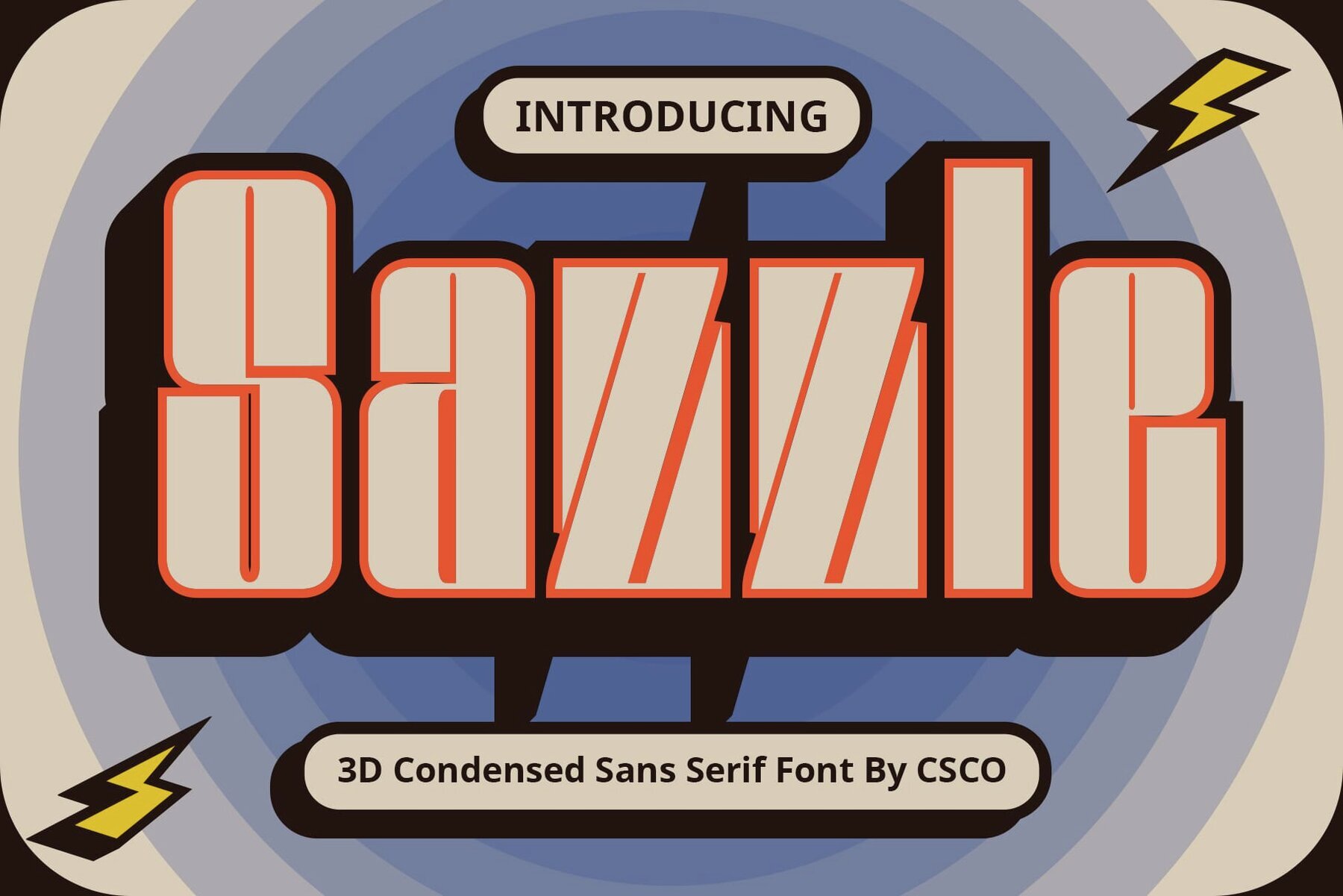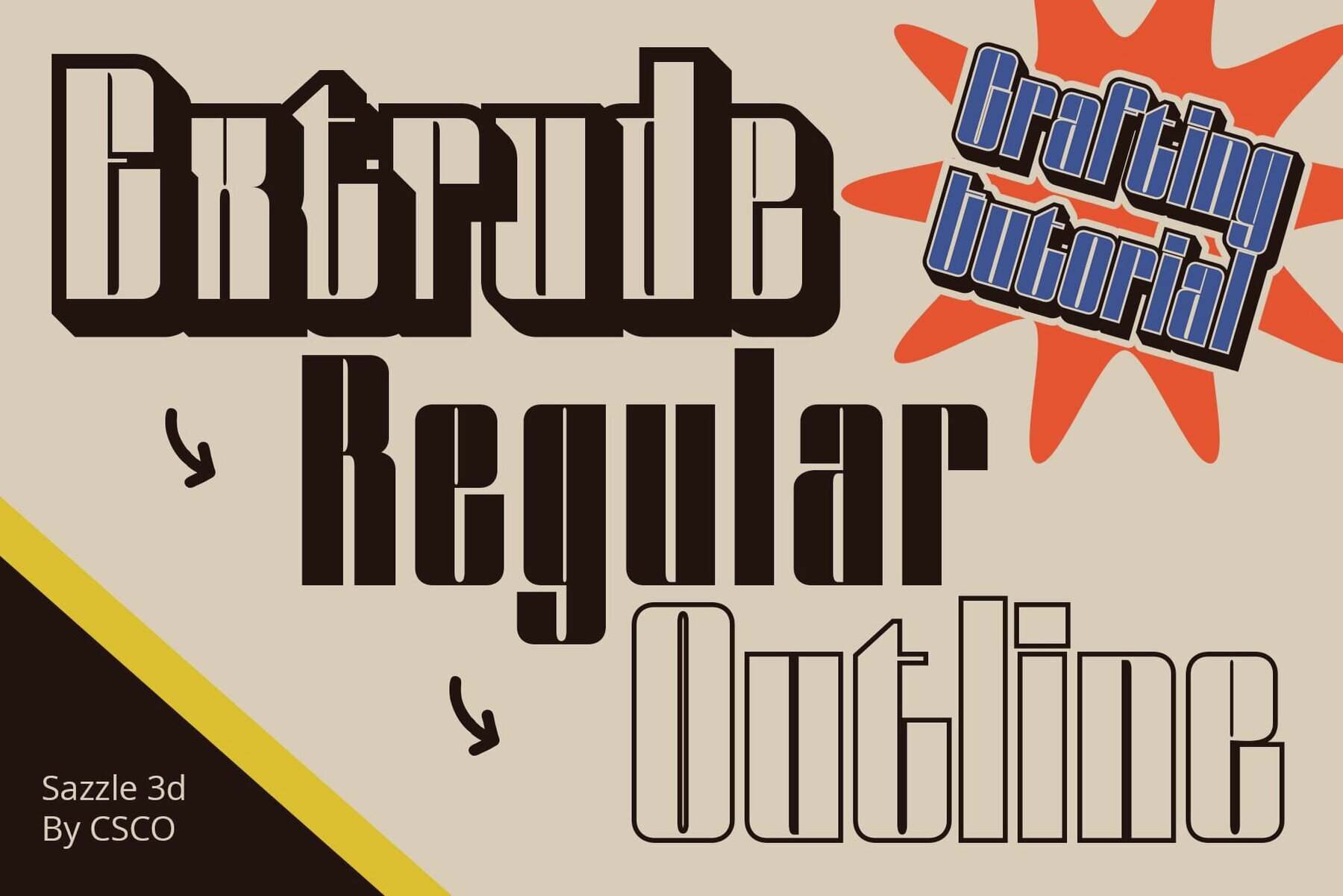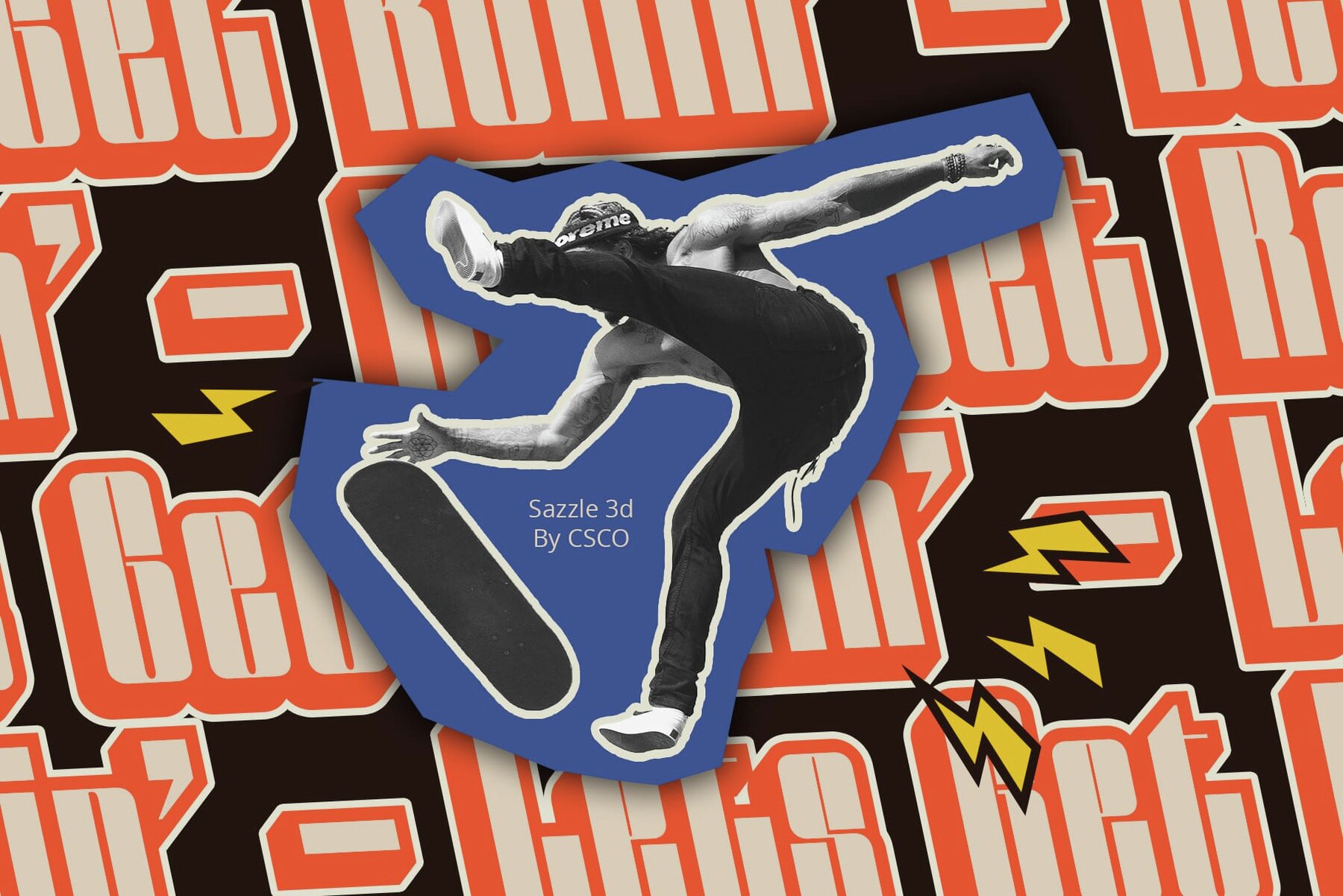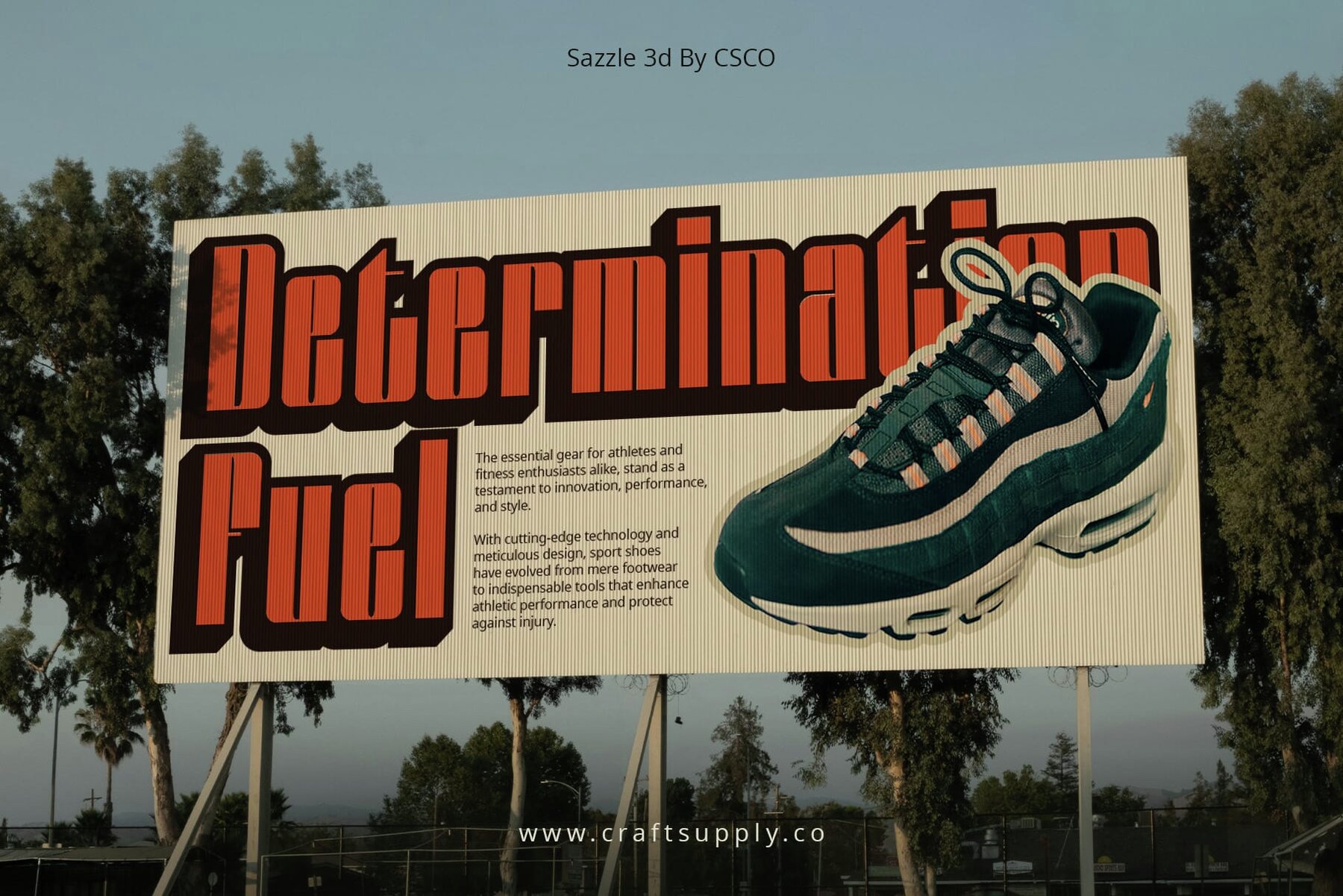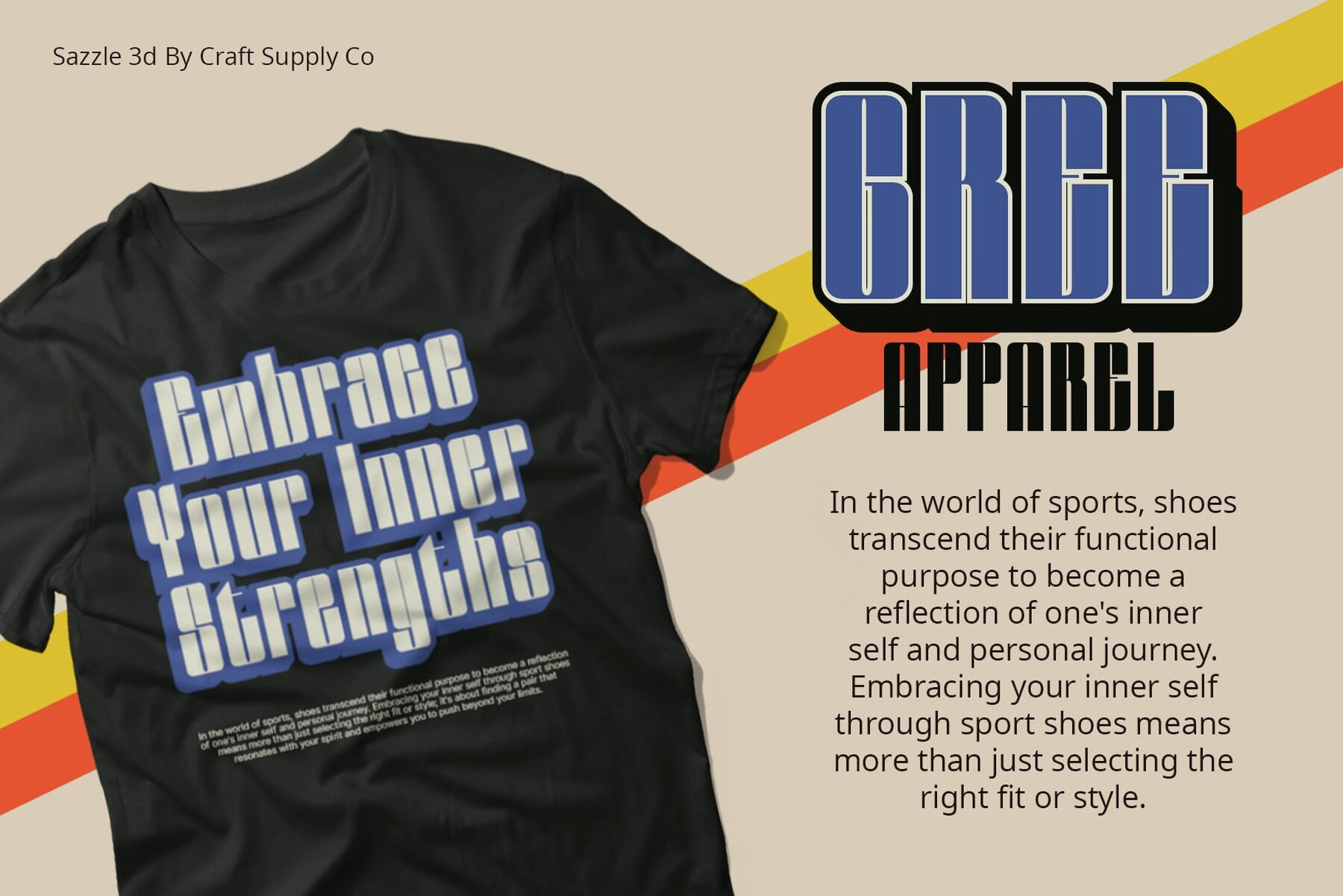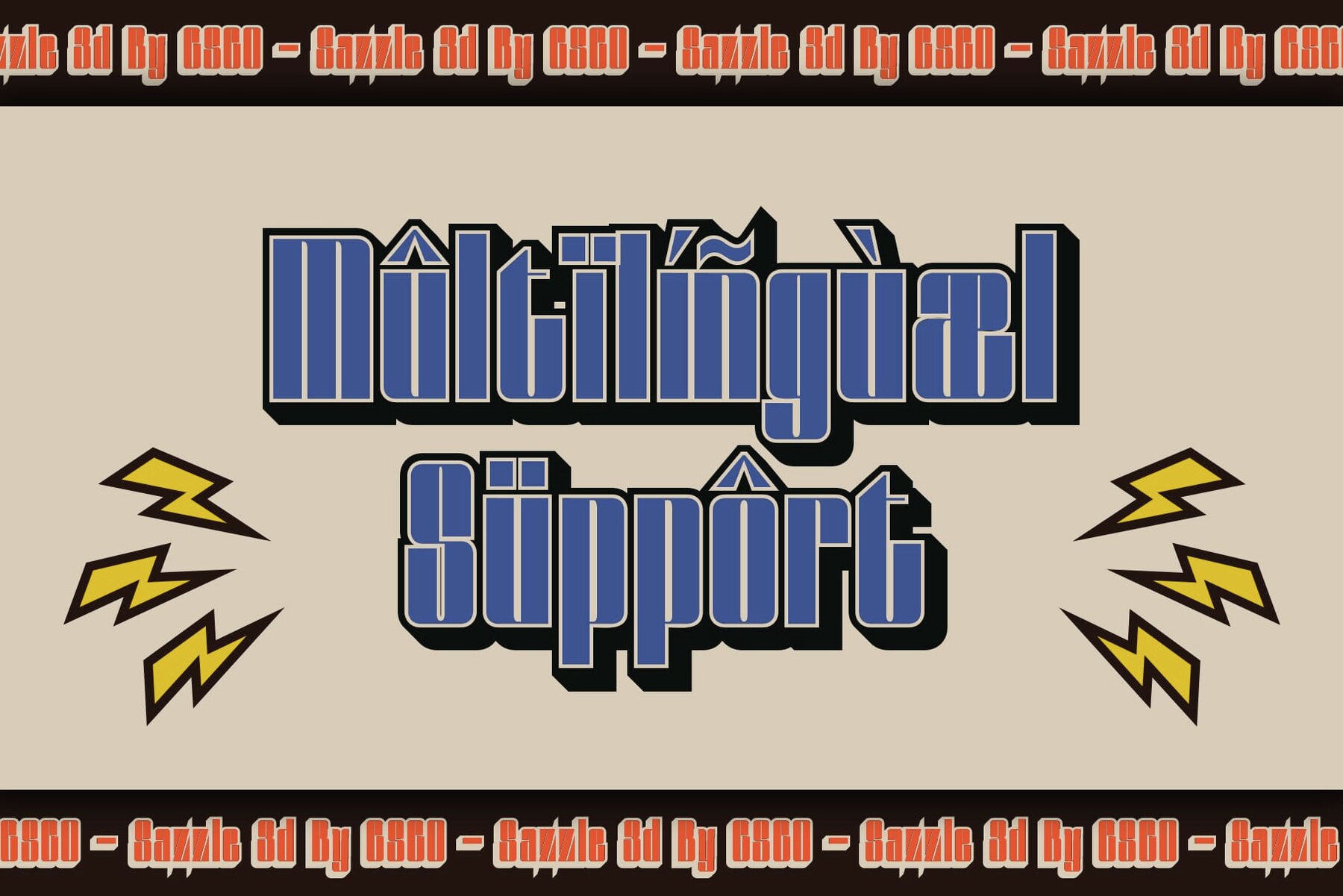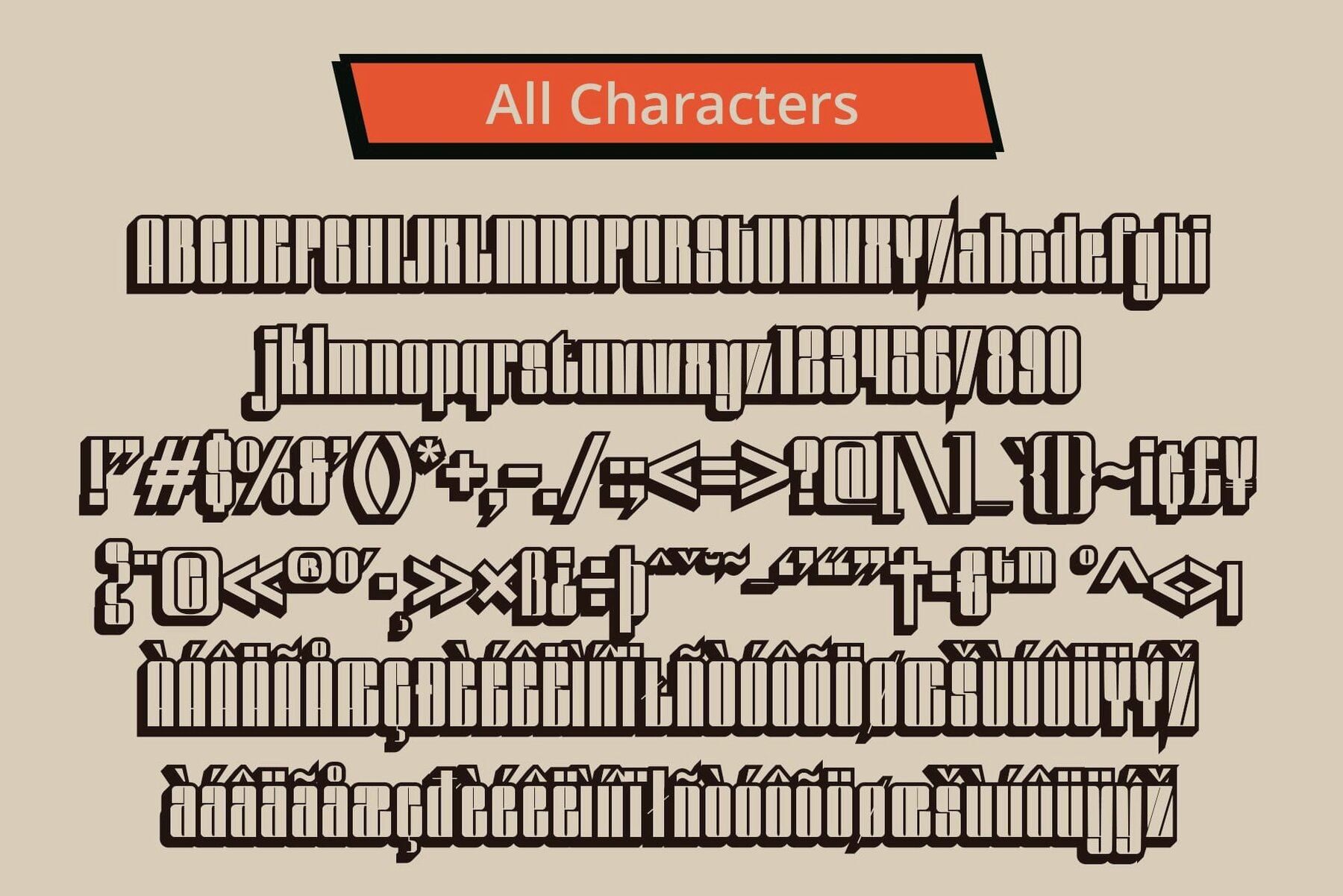
Sazzle 3D Font
Sazzle 3D stands out in the world of typography by offering an innovative design tailored for display purposes. Its unique features ensure captivating visual presentations. Featuring tight white space, Sazzle 3D maximizes character density, making it ideal for impactful display usage without compromising readability. Its condensed design is perfect for areas with limited space. Revolutionize your designs with Sazzle 3D's striking 3D effects. Each character seems to leap off the page, creating an engaging depth and dimension that captures immediate attention. Sazzle 3D is meticulously crafted for display applications, excelling in both digital and print media. Its distinctive design elements ensure maximum visibility and viewer engagement. Despite its narrow white space, Sazzle 3D offers broad versatility. Use it for headlines, logos, or promotional materials to inject a sophisticated touch and visual appeal. This font redefines the approach to display typography. With narrow white space and dynamic 3D effects, it enhances various design projects, offering both versatility and impact. This typeface is user-friendly and does not require specialized software. If you have any inquiries or need assistance, feel free to contact us. We appreciate your support in enhancing your creative projects!Sazzle 3D: Redefining Display Typography
Narrow White Space
Dynamic 3D Effects
Tailored for Display Needs
Versatile Application
Bold and Impactful
Available Variants